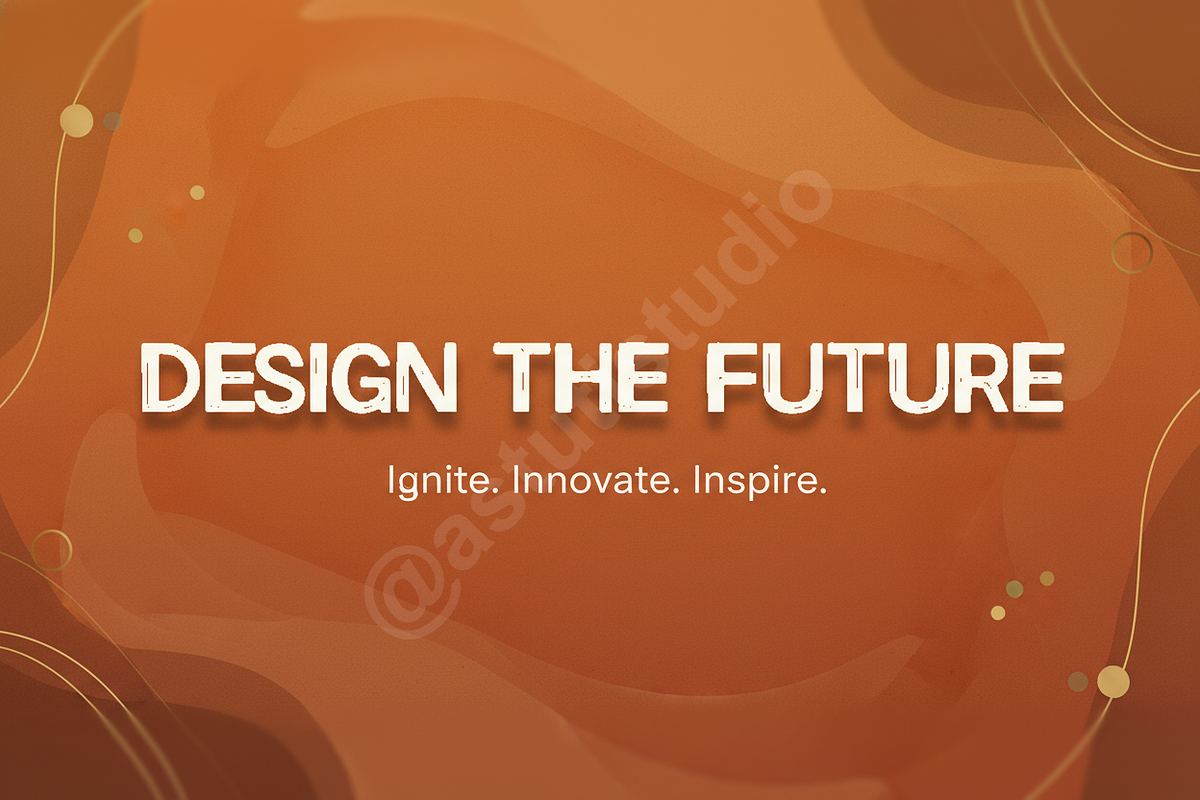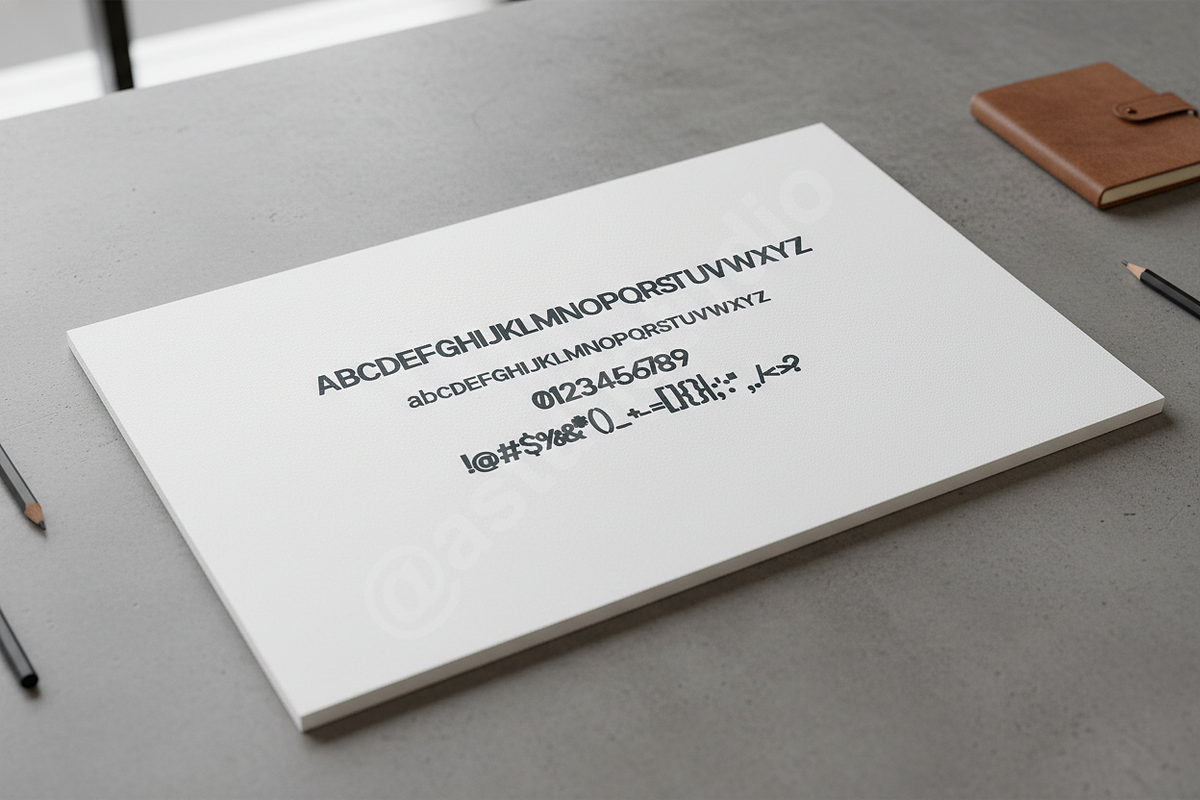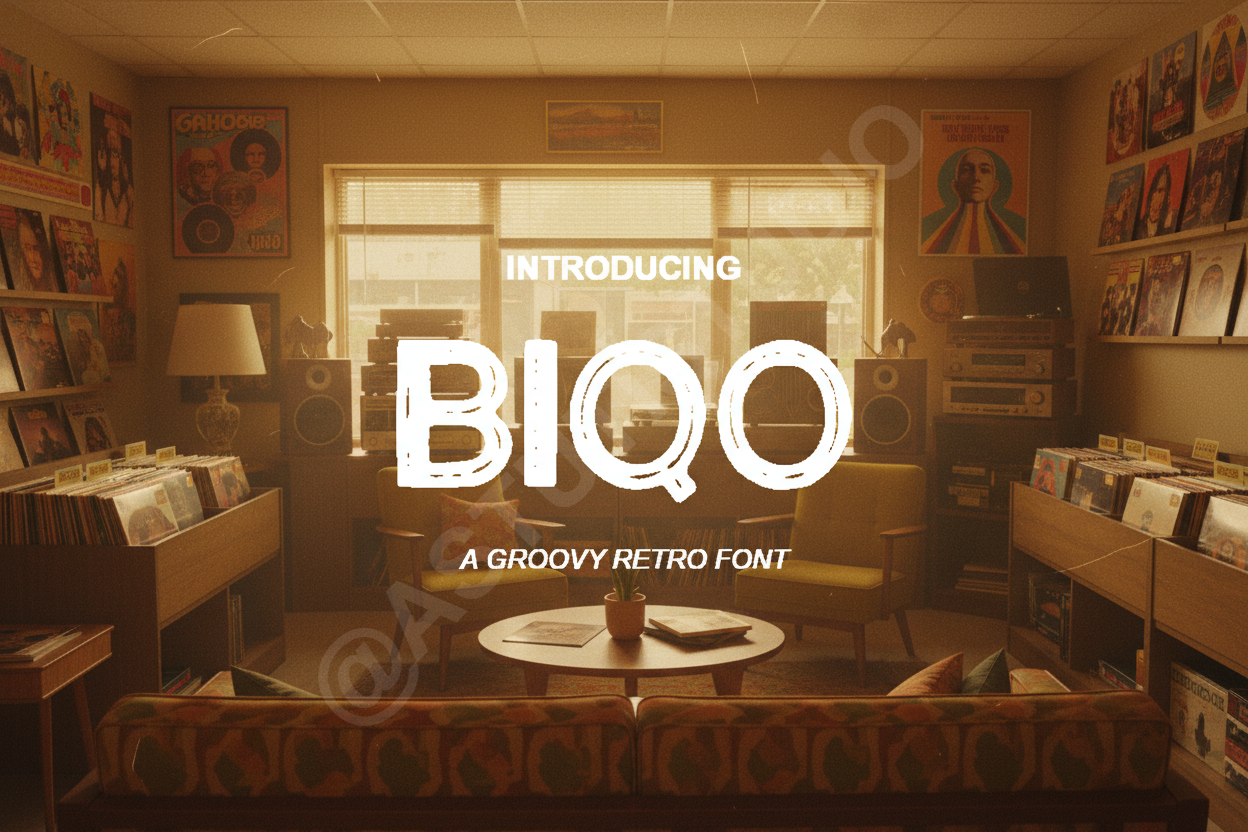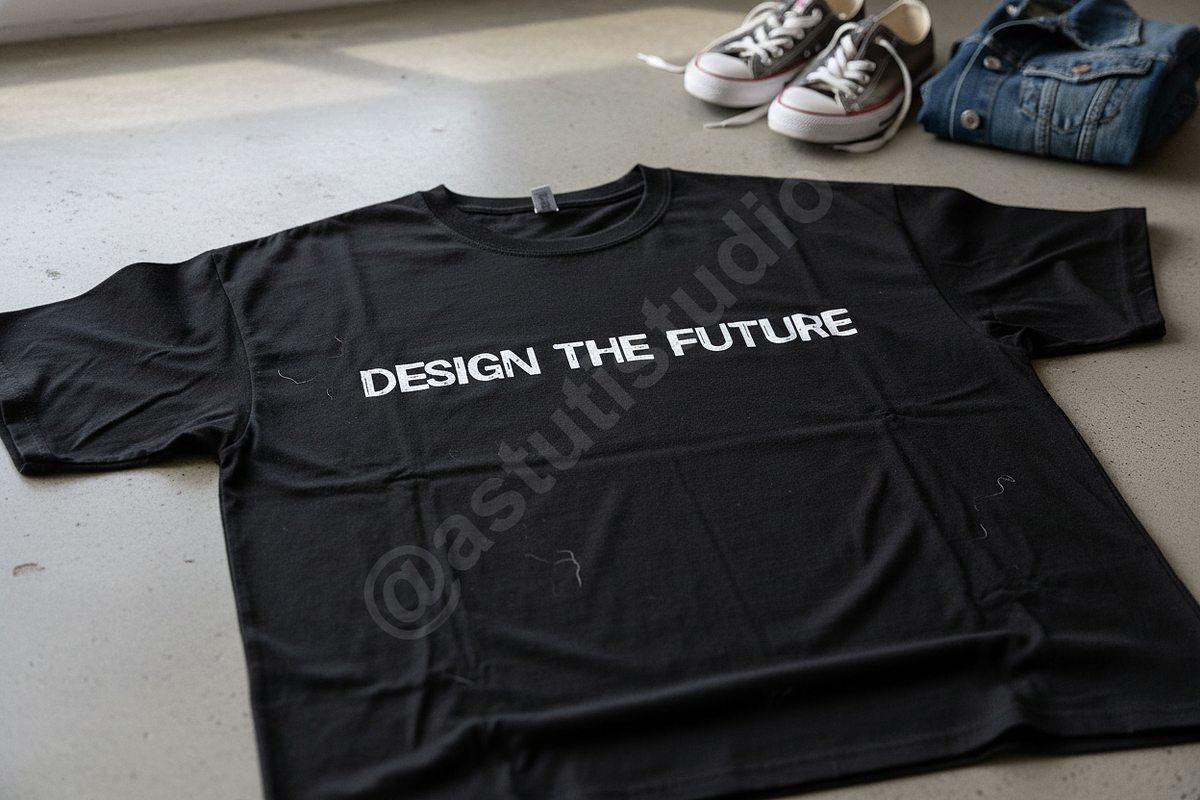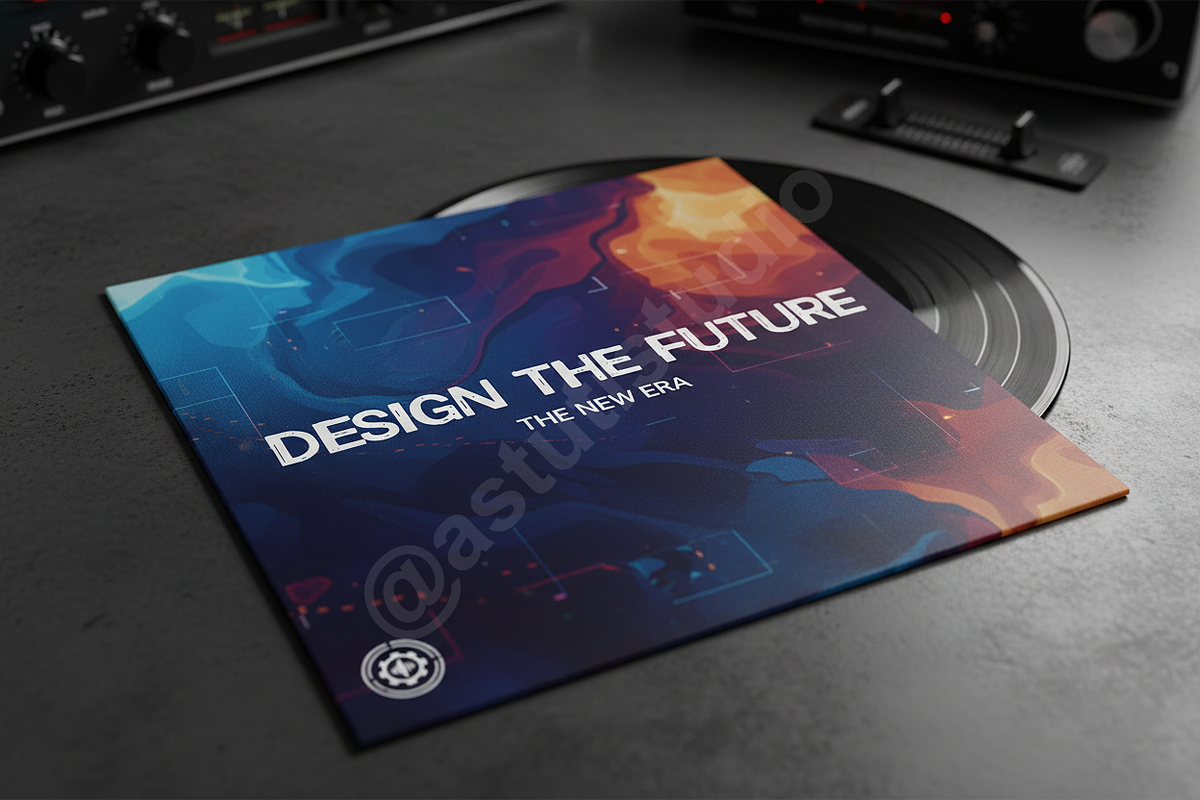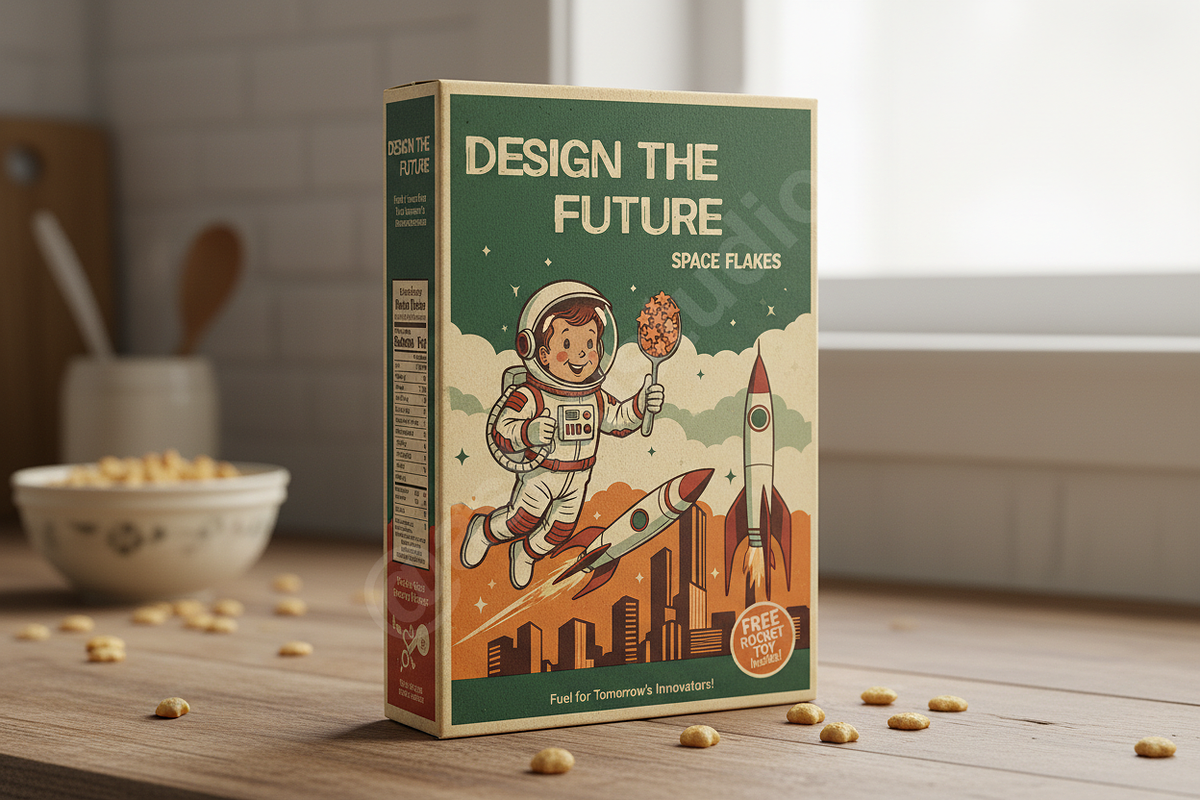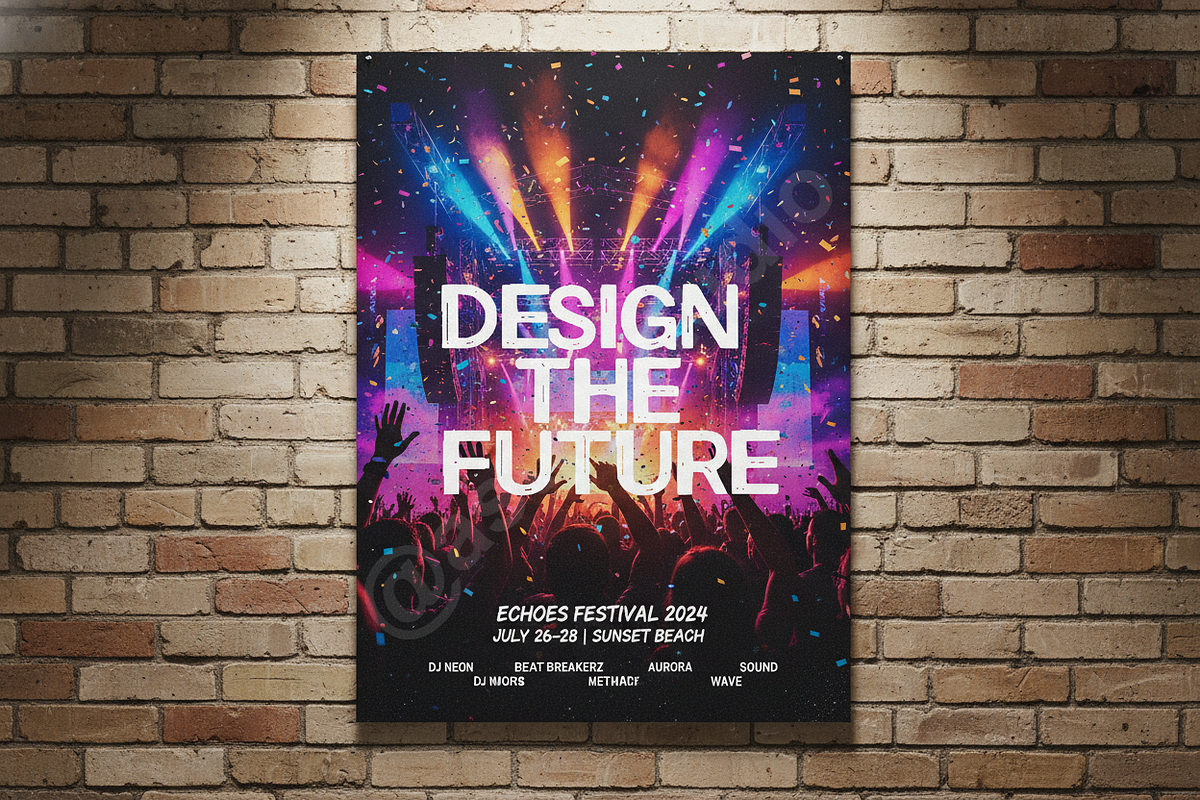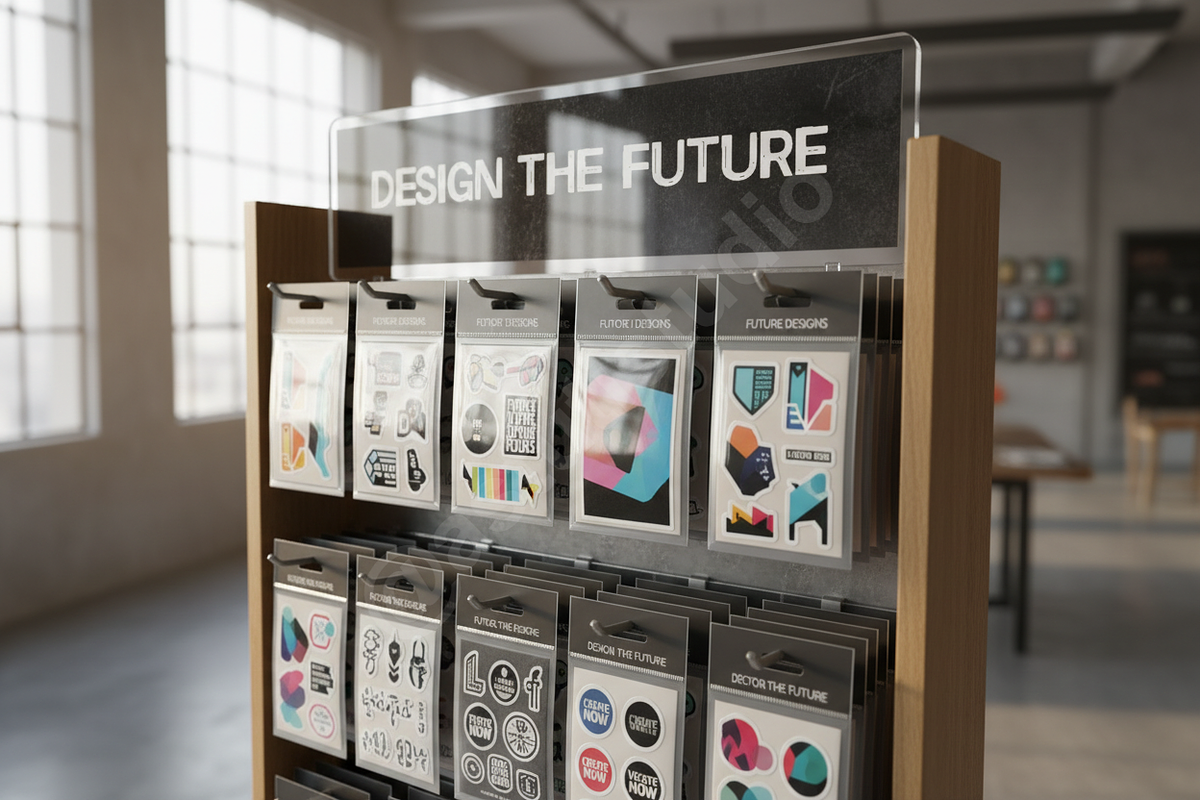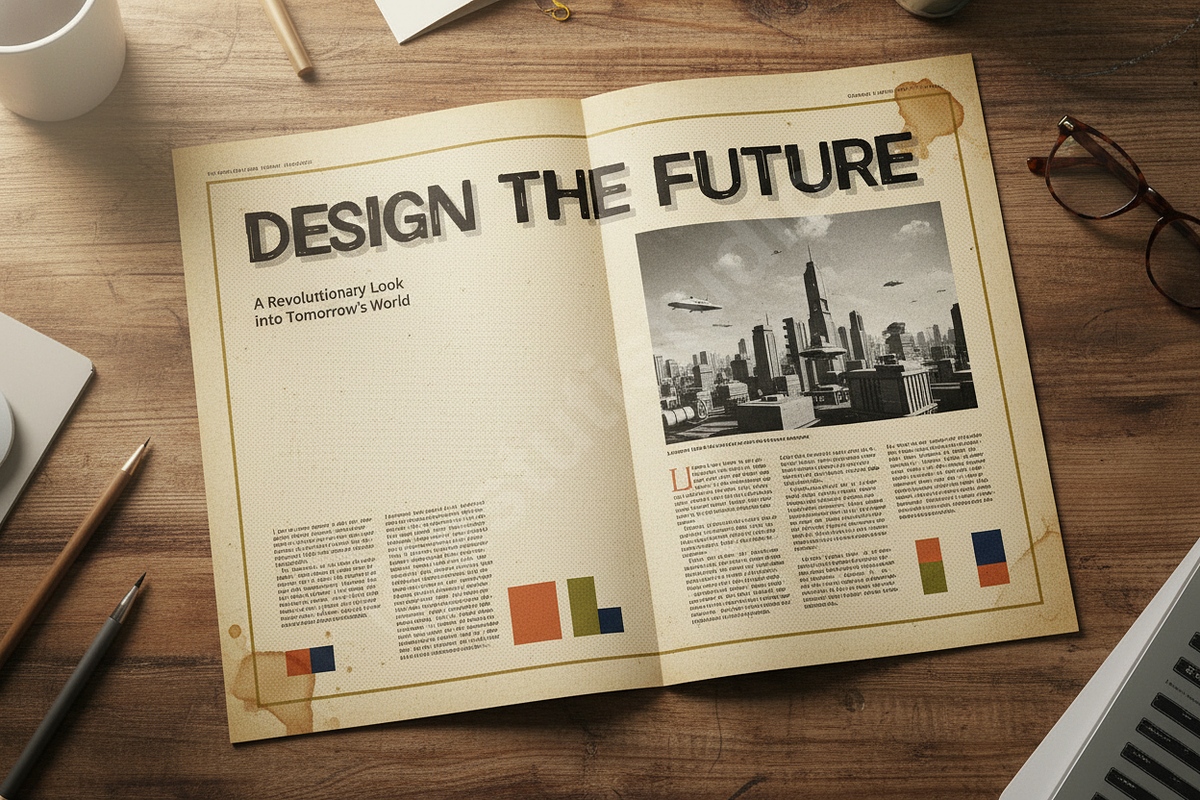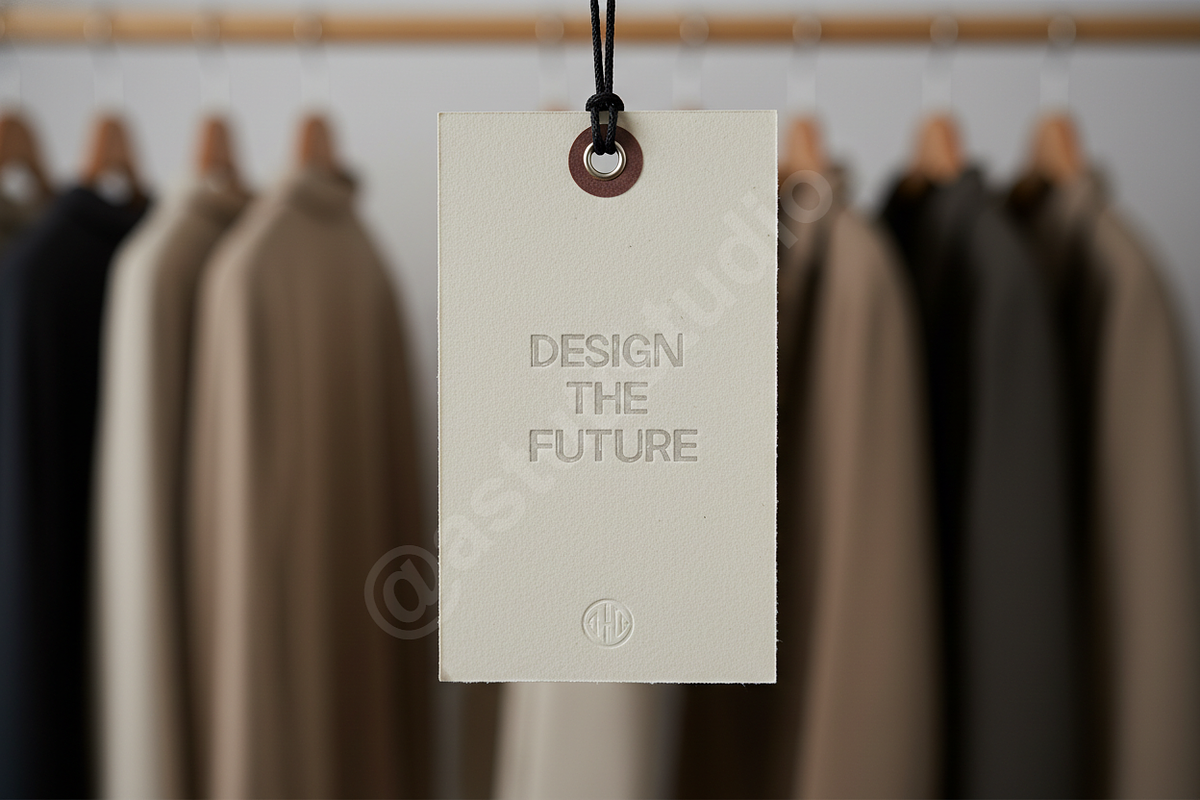
Biqo - Modern Luxury Serif Typeface
Introducing Biqo—a meticulously crafted modern serif typeface designed for the discerning creative. Biqo embodies timeless sophistication, blending classic structure with contemporary curves. It is the definitive choice for projects demanding an elevated aesthetic, ensuring your brand communication is both memorable and luxurious. This premium font family is engineered for impact across various mediums, from refined packaging to high-visibility editorial layouts and polished social media presence.
- Luxury Aesthetic: Perfect for high-end fashion, jewelry, beauty, and lifestyle branding.
- Editorial Readiness: Optimized for magazine layouts, annual reports, book covers, and sophisticated publishing.
- Complete OpenType Features: Includes a comprehensive collection of discretionary and standard ligatures for unique, customized typographic arrangements.
- Versatility: Excellent readability for body text while maintaining strong presence in headlines.
- Multilingual Support: Extensive glyph coverage supporting Western, Central, and South Eastern European languages.
- Complete Ligature and Alternate Characters Set.